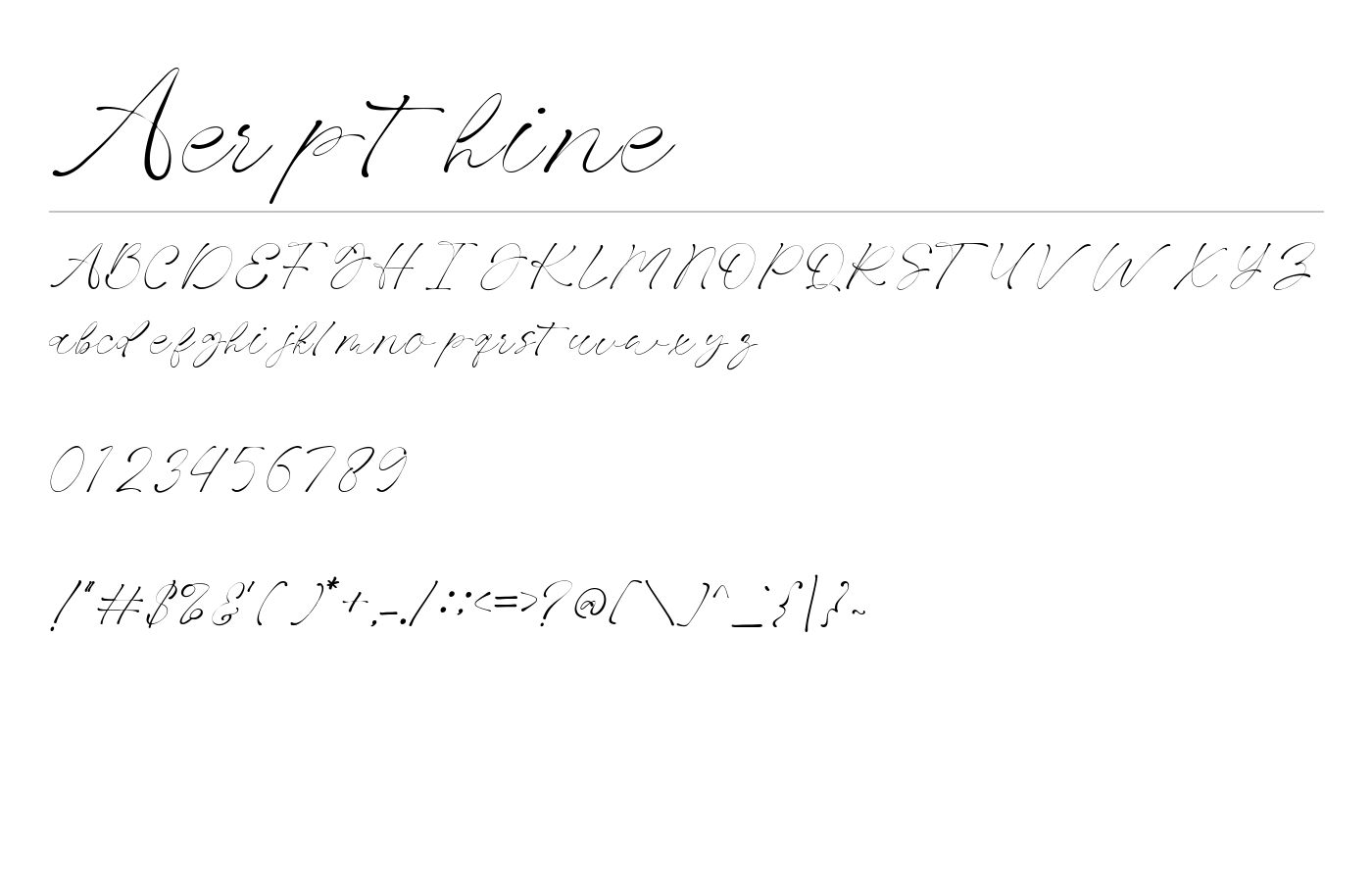
Aerpthine is a delicate, elegant script font with fine, flowing strokes that mimic graceful handwriting. Its slender, airy letterforms create a sophisticated and personal feel, making it ideal for invitations, branding, and projects that desire a touch of refined, romantic charm. This font works beautifully in contexts where a light, artistic, and expressive style is needed to convey elegance and individuality.
Aerpthine Font
About Aerpthine Font
| Font family | Aerpthine Font |
| Designer | Enxyclo Studio |